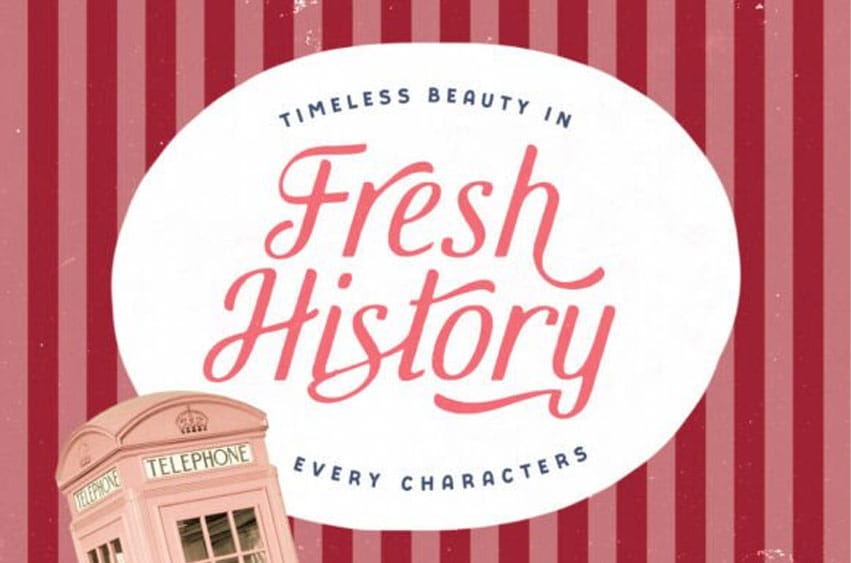
Fresh History Font is a lively and charming script font that beautifully captures the timeless, hand-painted look of vintage sign writing with a fun, slightly bouncy modern energy.
This gorgeous typeface features thick, expressive strokes and smooth, cursive connections that make it feel simultaneously nostalgic and completely current. The Fresh History font is an excellent choice for branding food, craft goods, retro-themed events, and packaging that needs a sweet, handmade, and warm personality. Its high legibility and delightful curves ensure a strong impact.
Use the versatile Fresh History typeface to infuse your designs with a sense of handcrafted authenticity and joyful, classic charm, giving your work that desirable, warm, vintage-inspired touch.